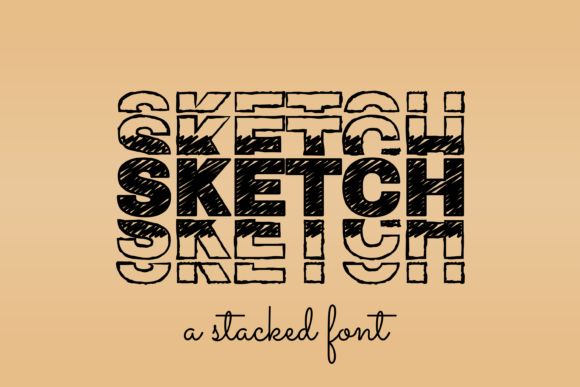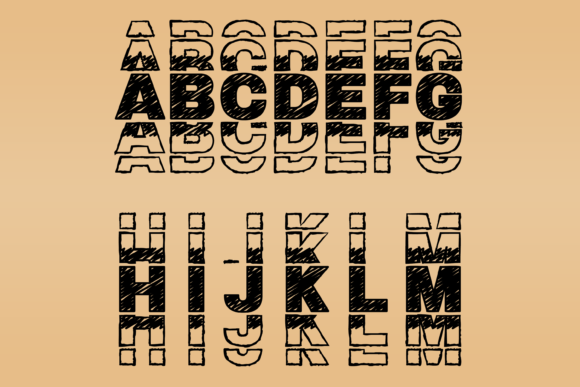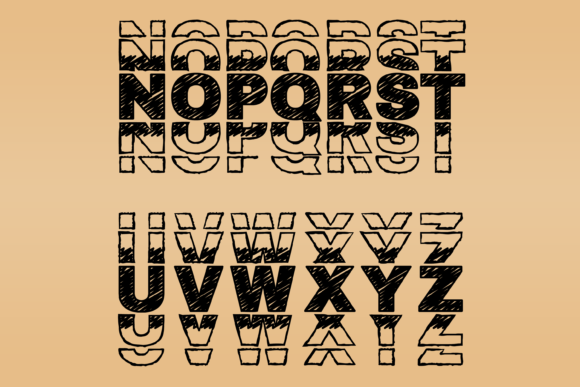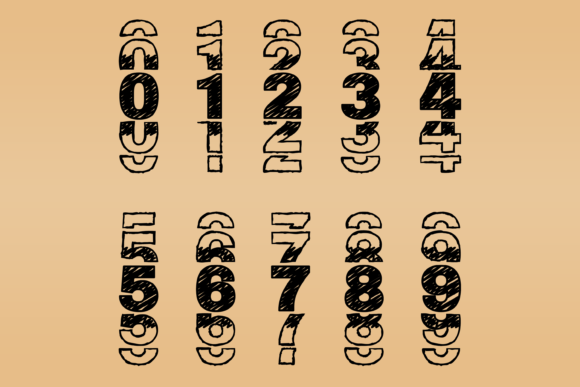
Sketch Font
Sketch is an incredibly cool display font. Whether you use it for custom designs, DIY crafts, or just any creation that requires a lovely touch, this font will be an amazing choice.